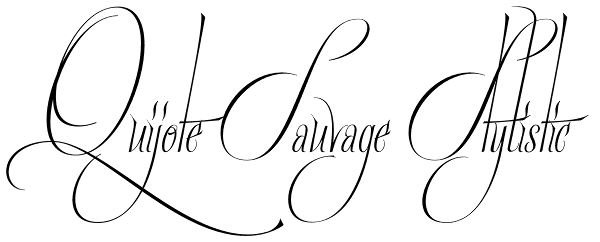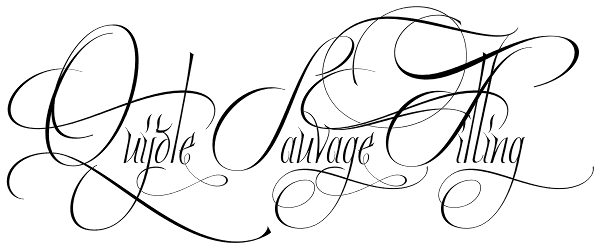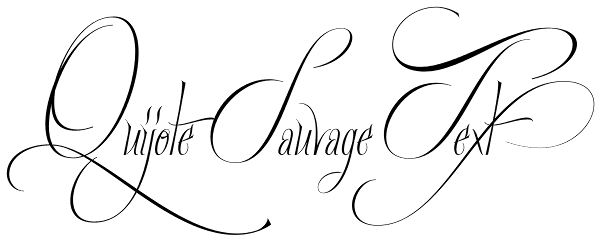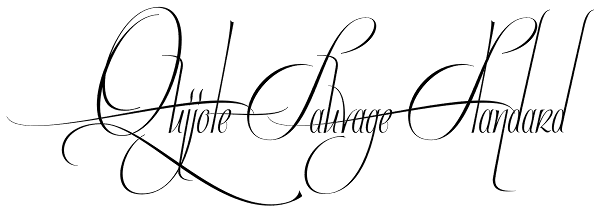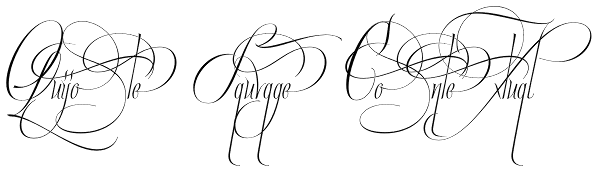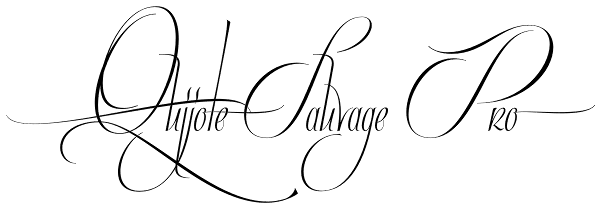
Quijote Sauvage
It was in the beginning of 2008 when I designed a font named Quijote, its predecessor. In the middle of 2009, I looked at it again and thought it could be a good idea to make an update of it. Variables and Features: Quijote Sauvage Pro is the most...
Quijote Sauvage Stylistic
Quijote Sauvage Titling
Quijote Sauvage Text
Quijote Sauvage Standard
Quijote Sauvage Contextual
Quijote Sauvage Pro
Quijote Sauvage Swash